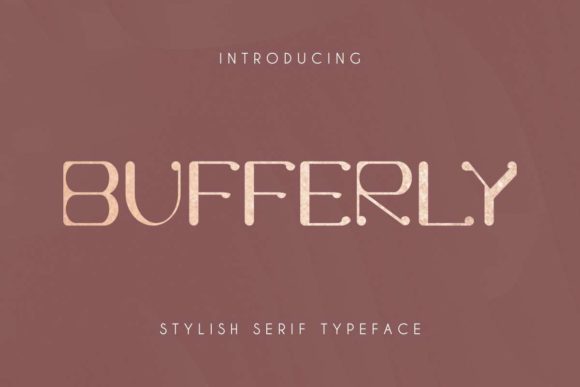
The Bufferly Font: A Designer’s New Best Friend
I’ll never forget the time I was working on a project for a high-end fashion brand, and my client asked me to create a logo that exuded luxury and sophistication. I spent hours scouring font libraries, but nothing seemed quite right. That was until I stumbled upon Bufferly Font. With its perfectly balanced mix of smooth and sharp lines, it was love at first sight! 💕
Bufferly is a fancy, contemporary serif font that has become a staple in my design toolkit. Its unique blend of elegance and modernity makes it perfect for a wide range of design needs, from logos and branding to packaging and advertising.
• ✨ Elegant and sophisticated: Bufferly’s serif lines add a touch of luxury to any design.
• ✅ Highly versatile: It works perfectly for both digital and print applications.
• 💡 Innovative OpenType features: Bufferly’s advanced typography features take your designs to the next level.
• 📚 Extensive glyph library: With a wide range of characters and symbols, you can create unique and complex designs.
While Bufferly is an amazing font, there are a few things to keep in mind: 🤔
• ⚠️ Some characters may require manual kerning: While Bufferly’s default kerning is excellent, some character combinations may require a bit of tweaking.
• ⚠️ Not ideal for body text: Due to its elegant, high-contrast design, Bufferly is best suited for headlines and titles rather than lengthy paragraphs.
The Story Behind Bufferly
Bufferly was designed by a team of typographers who wanted to create a font that combined the elegance of traditional serif fonts with the modernity of digital design. Inspired by the works of classic typographers like Didot and Bodoni, Bufferly’s creators aimed to craft a font that would be both timeless and cutting-edge.
Font Name Bufferly Font
Author EdricStudio
Q: What is Bufferly’s personality?
A: Bufferly is a fancy, contemporary serif font with a sophisticated and elegant personality.
Q: Does Bufferly support OpenType features?
A: Yes, Bufferly features advanced OpenType typography, including stylistic alternates, ligatures, and more.
Q: Is Bufferly suitable for body text?
A: While Bufferly is an excellent font, its high-contrast design makes it better suited for headlines and titles rather than lengthy paragraphs.